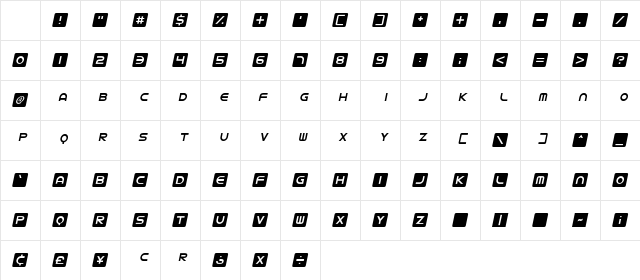
Complete Neon Globugs Italic glyph index. Displaying only characters natively supported by Neon Globugs Italic font.
Neon Globugs has a distinctly futuristic character, with geometric precision and clean angles that feel at home in technology, gaming, and sci-fi contexts. The slanted form adds forward momentum and visual energy.